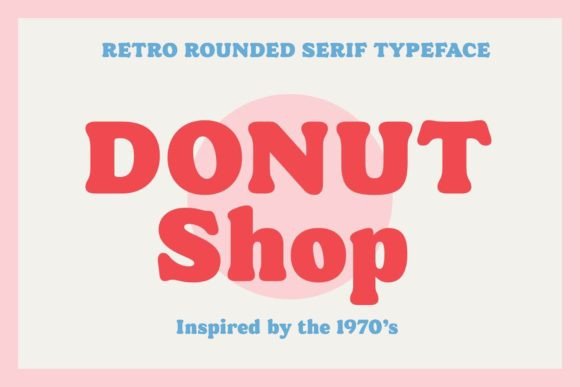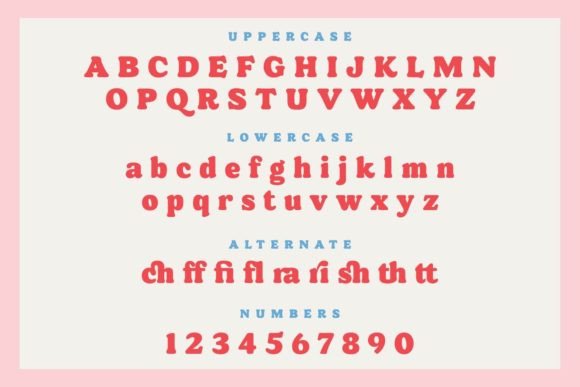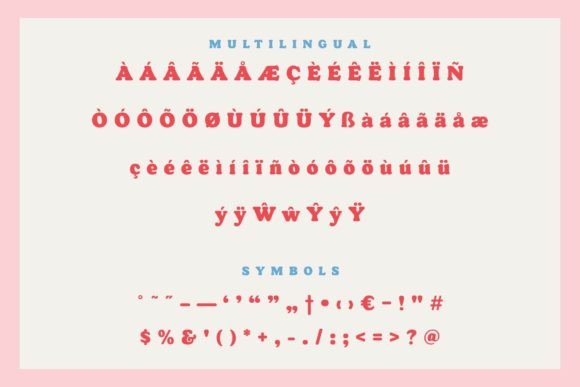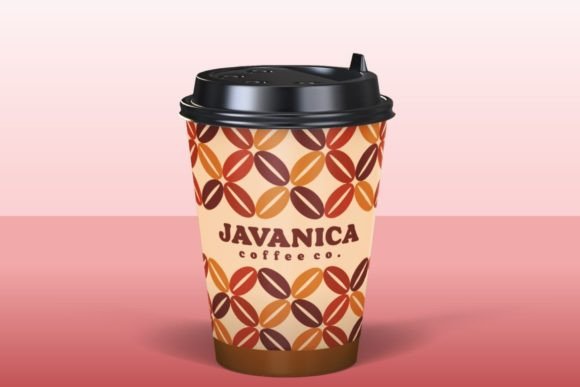
Donut Shop Font: A Chunky Retro Serif for Playful Branding!
About the Donut Shop Font
Welcome to the world of Donut Shop Font, a typeface that will inspire your next great project. Donut Shop is a chunky and fun retro-rounded serif font. It features soft corners, multilingual support, and a selection of ligature options. Inspired by the easy-going 70’s, this font is great for large display projects, branding elements, package designs & much more!
Donut Shop Font excels in headlines, logos, and short, impactful text for branding projects, posters, and packaging where its playful retro style shines. Its chunky nature, however, makes it less suitable for body copy or UI elements requiring high readability in smaller sizes or extended text blocks.
The font’s personality is undeniably cheerful and nostalgic. It evokes a sense of friendly approachability and retro charm. To complement this, consider pairing it with a clean sans-serif like Open Sans for body text or a more geometric sans-serif such as Futura for a modern contrast. A handwritten script font could also add a touch of playful authenticity.
Avoid using Donut Shop for situations demanding elegance or sophistication. Its informal and bold character is best suited to brands targeting a younger demographic or those with a vintage aesthetic, such as food companies, clothing lines, or entertainment venues with a retro feel.
Donut Shop Font Usage Examples
Donut Shop Font Example